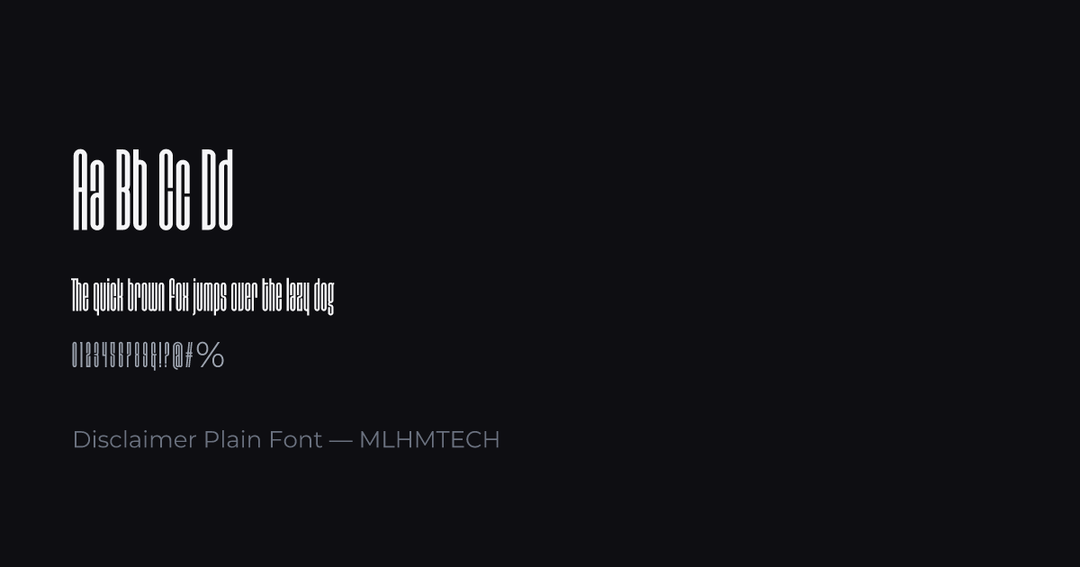
Disclaimer Plain Font
A clean, minimal sans-serif font ideal for titles, subtitles, and modern design projects. Handpicked for versatility and readability.
Disclaimer Plain is a straightforward, sans-serif typeface that brings clarity and a modern touch to any project. Its clean lines and neutral appearance make it a reliable choice for video titles, lower thirds, and graphic overlays.
This font is part of a handpicked collection, ensuring quality and uniqueness. Whether you're working on a corporate video, a social media graphic, or a personal project, Disclaimer Plain offers a professional and uncluttered aesthetic.
With its simple design, it pairs well with more decorative fonts, serving as a solid base for body text or secondary elements. The TTF format ensures compatibility across various platforms and software.